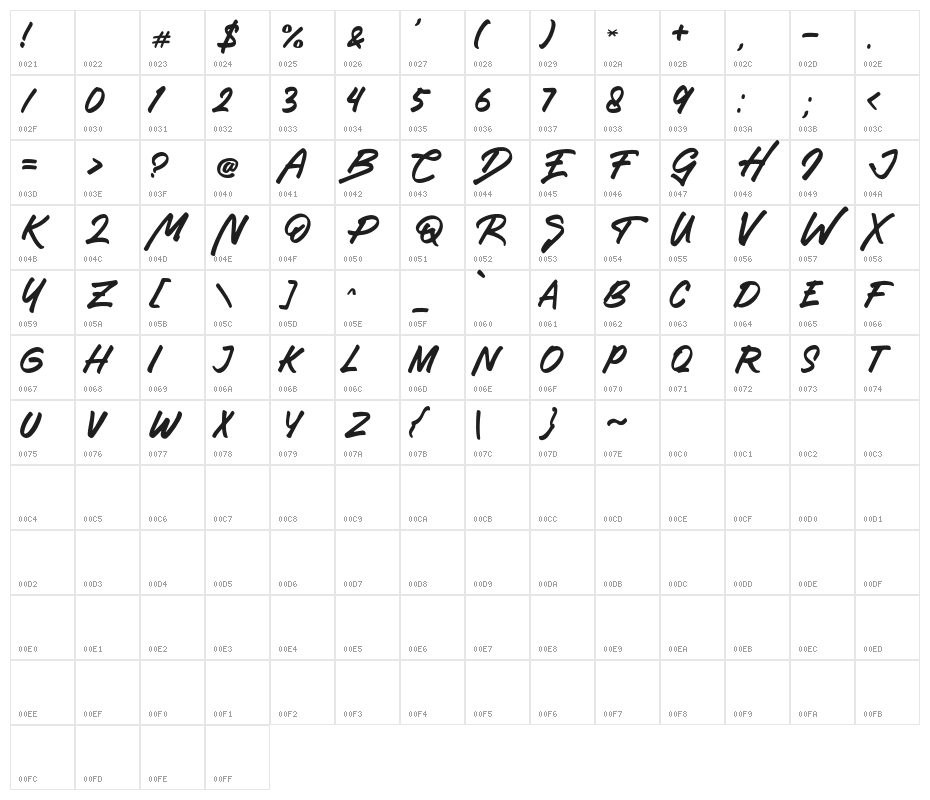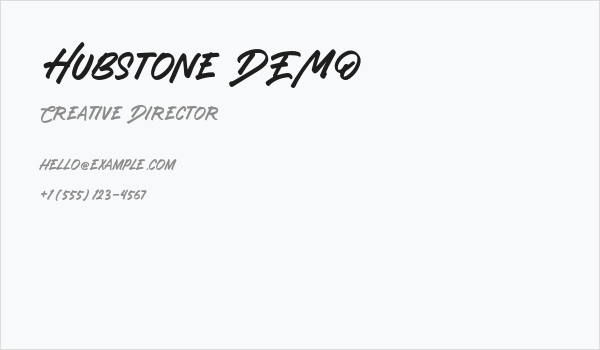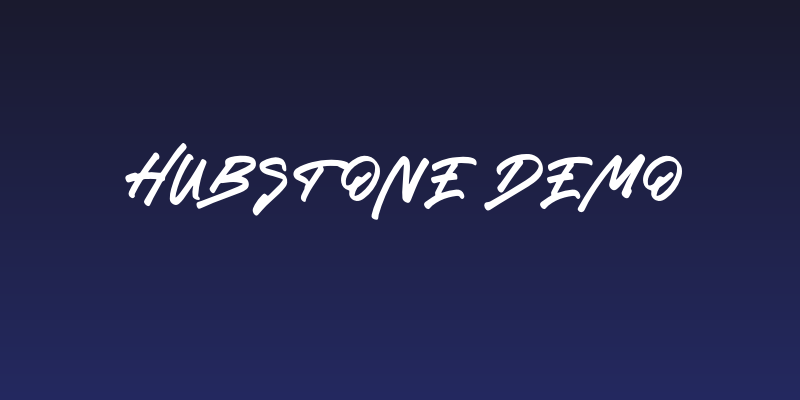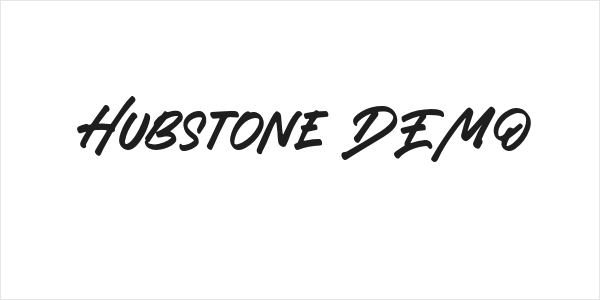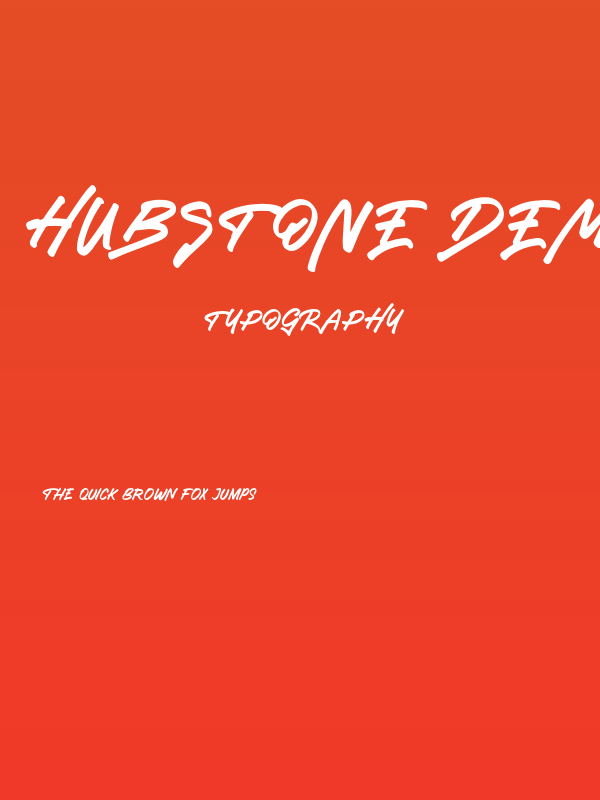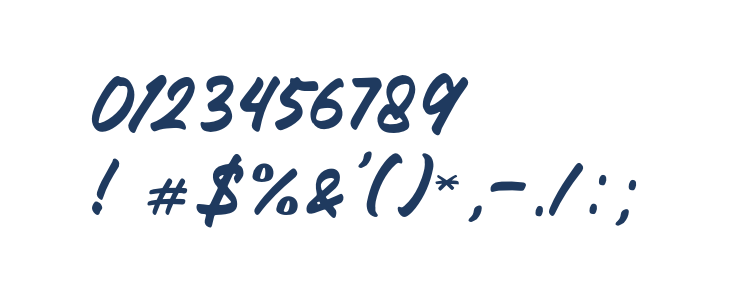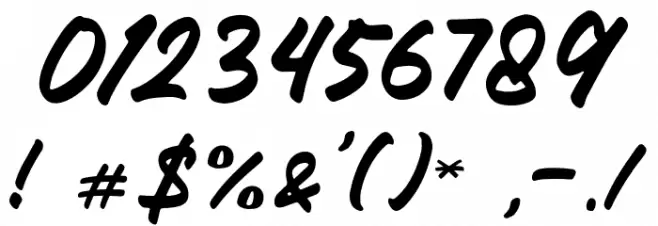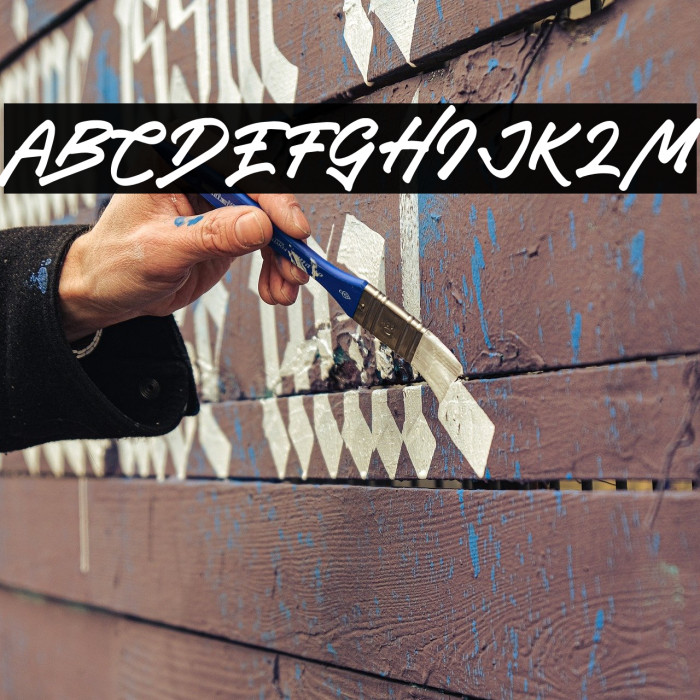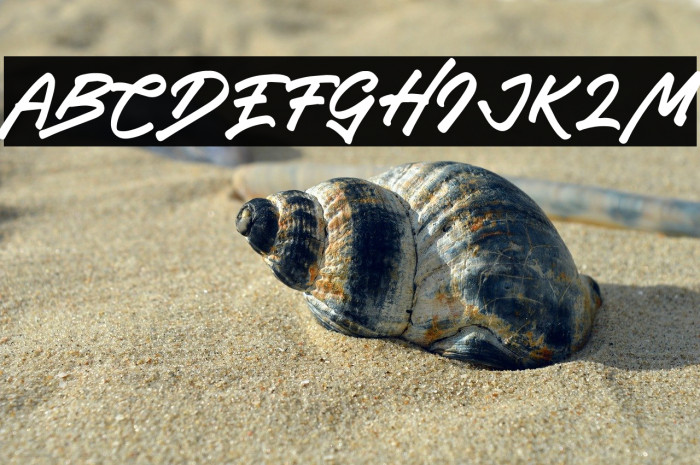
Hubstone DEMO Font
Hubstone DEMO Description
This font features a bold, energetic script style with a dynamic and flowing appearance. The uppercase letters are slightly slanted, giving a sense of movement and fluidity, while the lowercase letters maintain a consistent rhythm. The strokes are thick and confident, with rounded edges that soften the overall look. The numbers and special characters are designed to match the lively style of the letters, ensuring a cohesive appearance across all text. This font is ideal for creating eye-catching headlines or logos that require a touch of personality and flair.